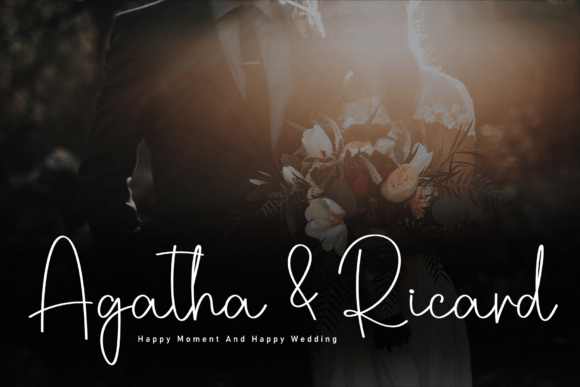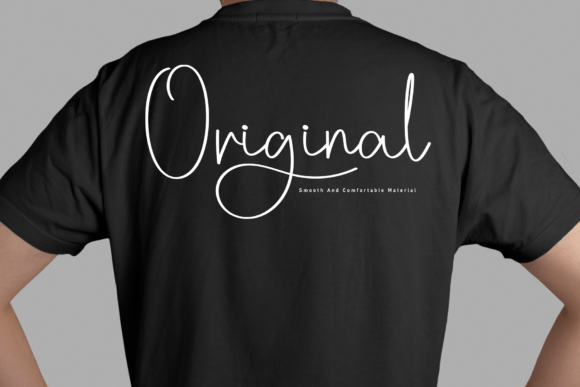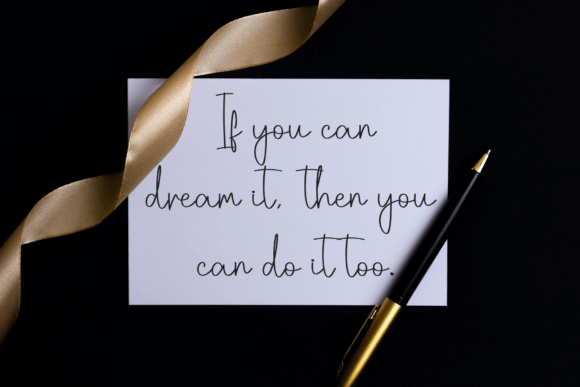
Introduction to Partynight Font
Partynight is a lovely and timeless handwritten font.
Key Features of Partynight Font
Why Choose Partynight Font?
Partynight Font offers exceptional quality and versatility, making it a valuable addition to your design toolkit. Whether you’re creating for personal projects or commercial use, Partynight Font delivers professional results.